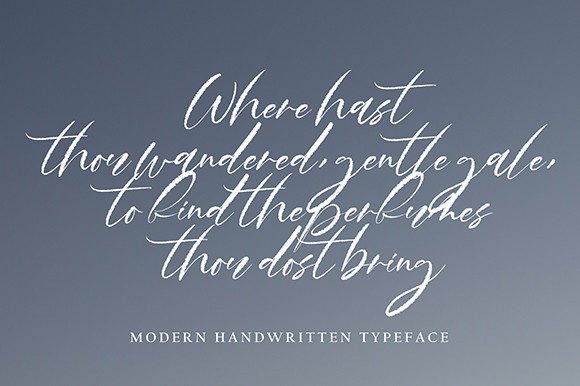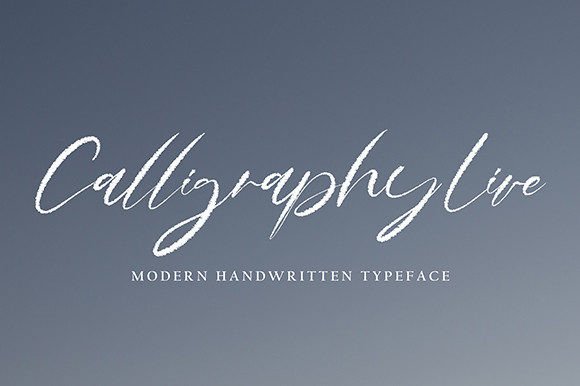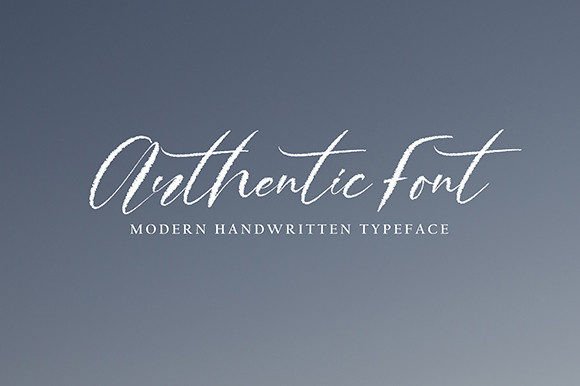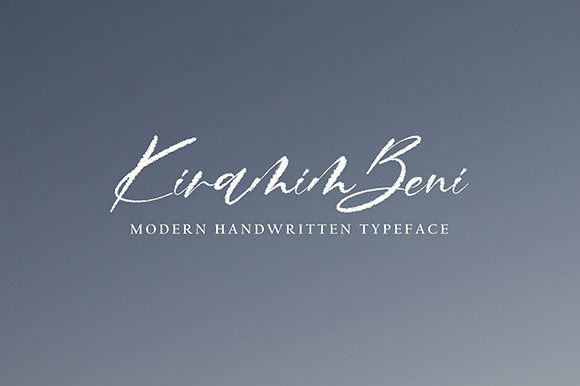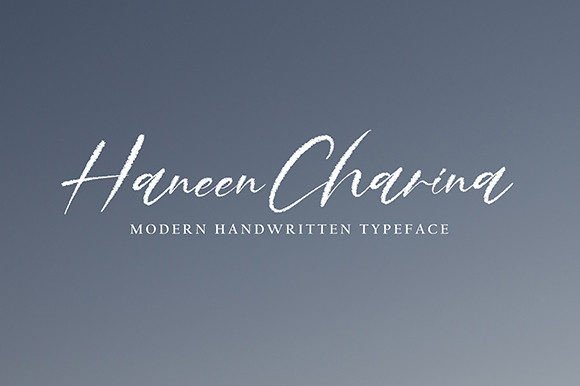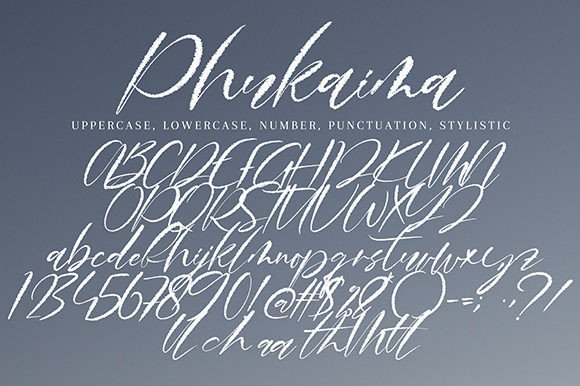
Introduction to Phukaima Font
As a designer, have you ever found yourself staring at a blank canvas, struggling to bring your creative vision to life? It’s a moment we’ve all been in, searching for that perfect design resource to elevate our project. For me, it was the moment I discovered the Phukaima Font – a beautifully crafted handwritten font that changed the game. Its classy calligraphic influences and fresh, contemporary feel immediately caught my attention, and I knew I had to share it with the world.
Phukaima Font is more than just a design tool – it’s a game-changer for any creative project. With its high-quality design and transparent background, it’s the perfect addition to any designer’s toolkit. Whether you’re working on a logo, typography-based design, or any other creative project, Phukaima Font is sure to bring your vision to life.
Key Features of Phukaima Font
- High-quality design resource ideal for creative projects, offering a unique and elegant style.
Honest Review: Phukaima Font
As a designer, I’ve had the chance to work with numerous fonts, but the Phukaima Font caught my attention due to its unique characteristics. This font is perfect for creative projects where you need a distinctive touch.
What works well for me is the high quality of the font. It’s well-designed and versatile, making it suitable for various design applications. The transparent background is also a bonus, allowing me to easily layer it with other design elements.
- ✨ Unique style that sets it apart from other fonts
- ✨ High quality that ensures a professional finish
However, there are some limitations to consider. The font may not be suitable for body text due to its decorative nature. Additionally, the font may not be compatible with all operating systems, which could lead to formatting issues.
Overall, I’m impressed with the Phukaima Font and would recommend it as a design resource for creative projects. Just be aware of its limitations and use it accordingly.
How to Use Phukaima Font
The Phukaima Font is a high-quality design resource ideal for creative projects that require a unique and eye-catching aesthetic. With its transparent background, this font is perfect for adding a touch of sophistication to your designs.
Tips for Getting the Most Out of Phukaima Font
Experiment with different font sizes, colors, and combinations to create unique and eye-catching designs. Use the transparent background feature to add depth and dimension to your designs.
The Phukaima Font is ideal for a variety of creative projects, including logos, graphics, presentations, and documents. Its high-quality design and transparent background make it a versatile and valuable design resource.